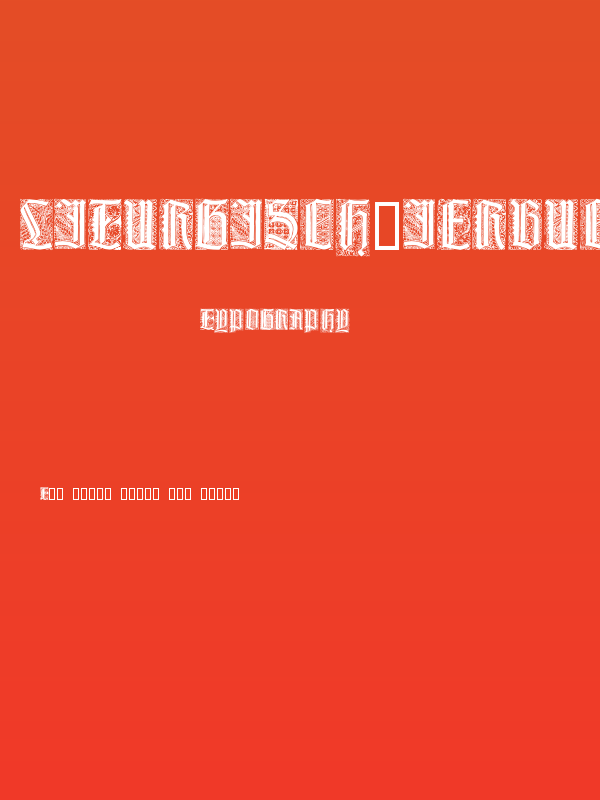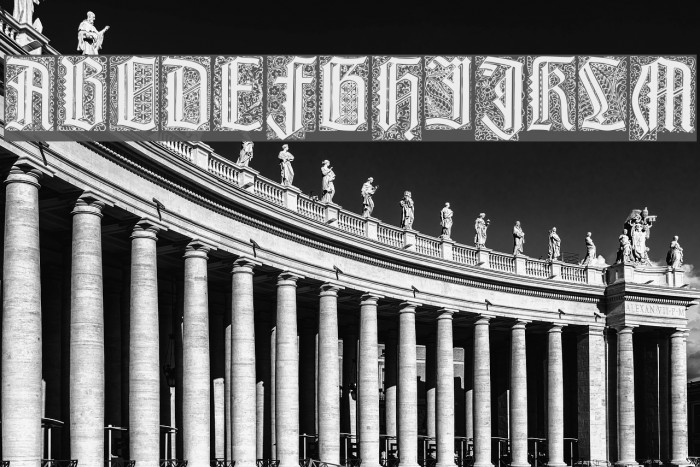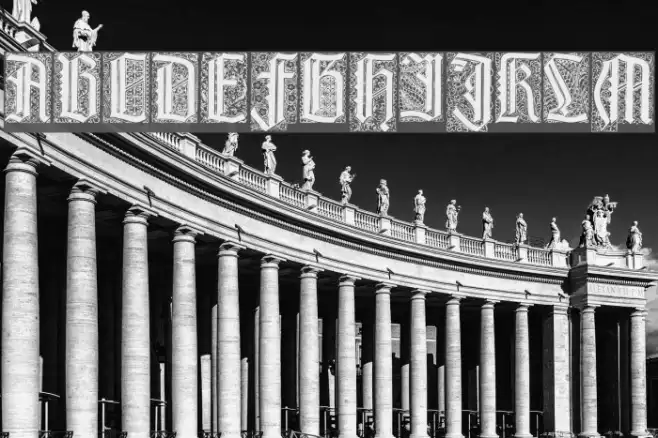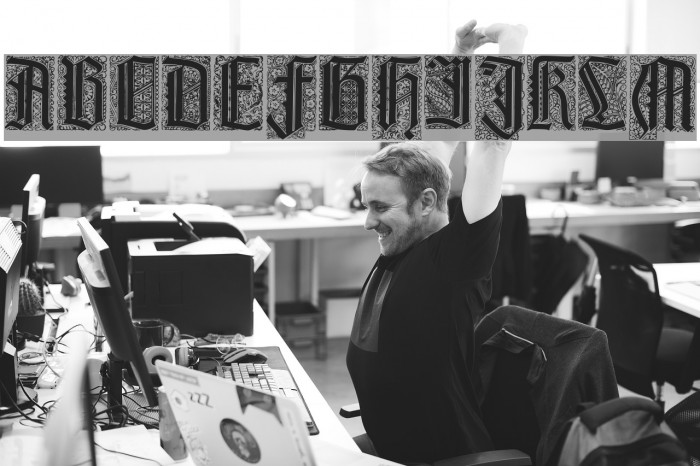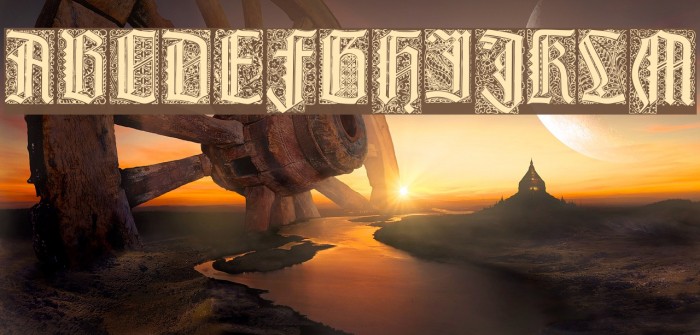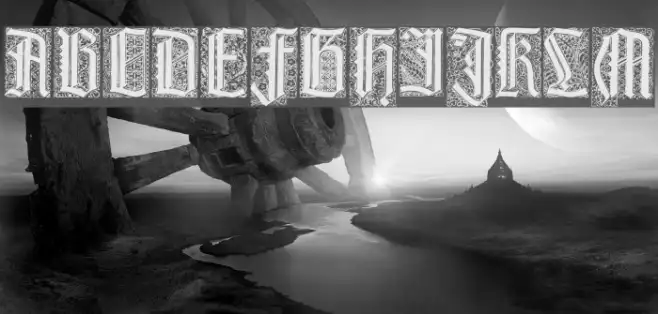
LiturgischZierbuchstaben Font
LiturgischZierbuchstaben Description
This font is a highly decorative and intricate Blackletter style, characterized by its ornate and elaborate design. Each letter is embellished with detailed flourishes and embellishments, giving it a historical and medieval appearance. The uppercase letters are particularly striking, with bold strokes and complex patterns that evoke a sense of grandeur and tradition. The font's design is reminiscent of ancient manuscripts and religious texts, making it ideal for projects that require a touch of elegance and sophistication. Its unique style is both eye-catching and memorable, suitable for creating a strong visual impact.